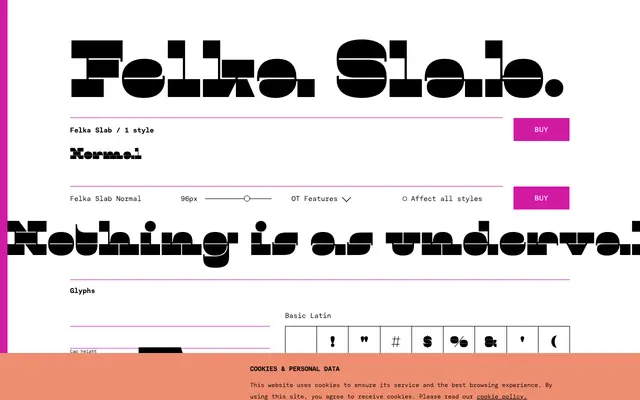
Felka Slab
A single-weight display slab by Thomas Thiemich that reduces letterforms to stacked horizontal bars, referencing 19th-century extremes such as Caslon Italian while maintaining a lively, fluid lowercase.
Capitals are built from three fat horizontal bars without the customary thin middle bar, intensifying the visual impact common to this lineage of display types. The lowercase resists the mathematical rigidity often seen in similarly reduced designs, staying organic and rhythmic where others go geometric. The family extends across four subfamilies — Slab, Brick, Line and Leaf — with a Latin-Arabic companion for Slab, and thorough OpenType features including lining and oldstyle figures, stylistic alternates and case-sensitive forms.
Felka Slab draws on 19th-century extreme display types such as Caslon Italian, with capitals built from stacked horizontal bars and a lively lowercase reduced to minimal strokes. Its slab construction and extreme proportions place it firmly in the display category.